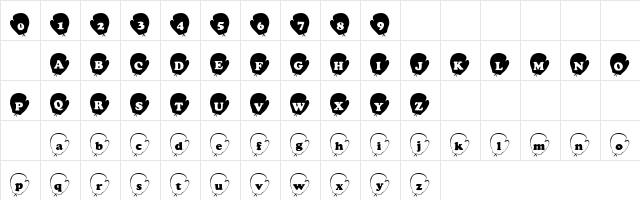
101! Put 'Em Up! Regular
Design Context for 101! Put 'Em Up! Typeface
101! Put 'Em Up! is a composed and adaptable typeface that performs quietly and consistently across a wide range of design contexts.